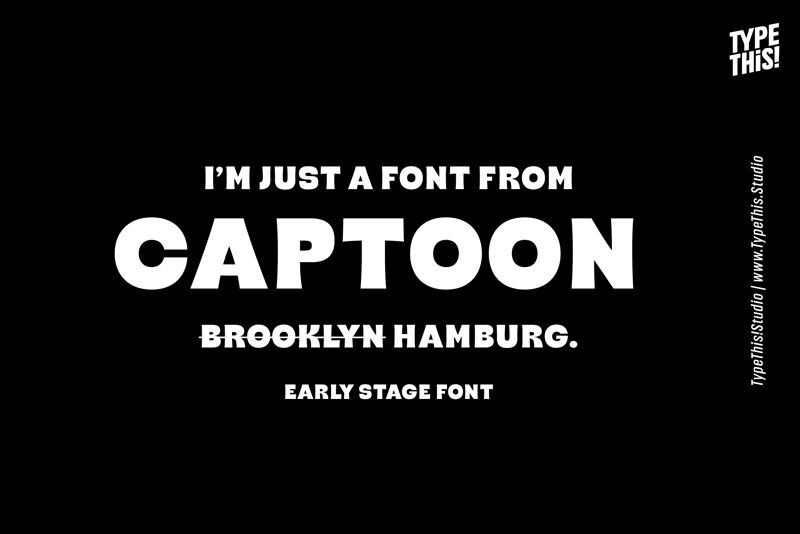
Captoon ES, designed by Anita Jürgeleit, is the perfect display font for projects that require a fun and playful touch. With its extra-bold weight and semi-expanded width, this cartoon-inspired typeface is sure to catch the eye and convey a lighthearted vibe. Use it in children's books, comic strips, logos, or even advertisements to add some personality and charm. Captoon ES is versatile enough to make any design pop and stand out from the crowd. Let your creativity run wild with this delightful font!